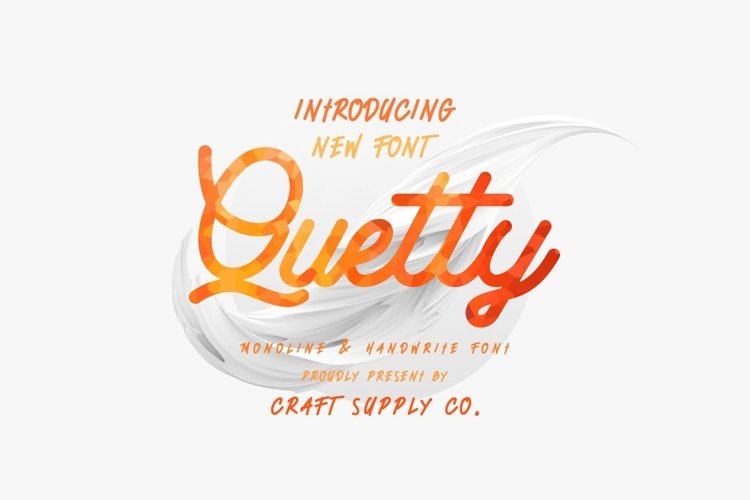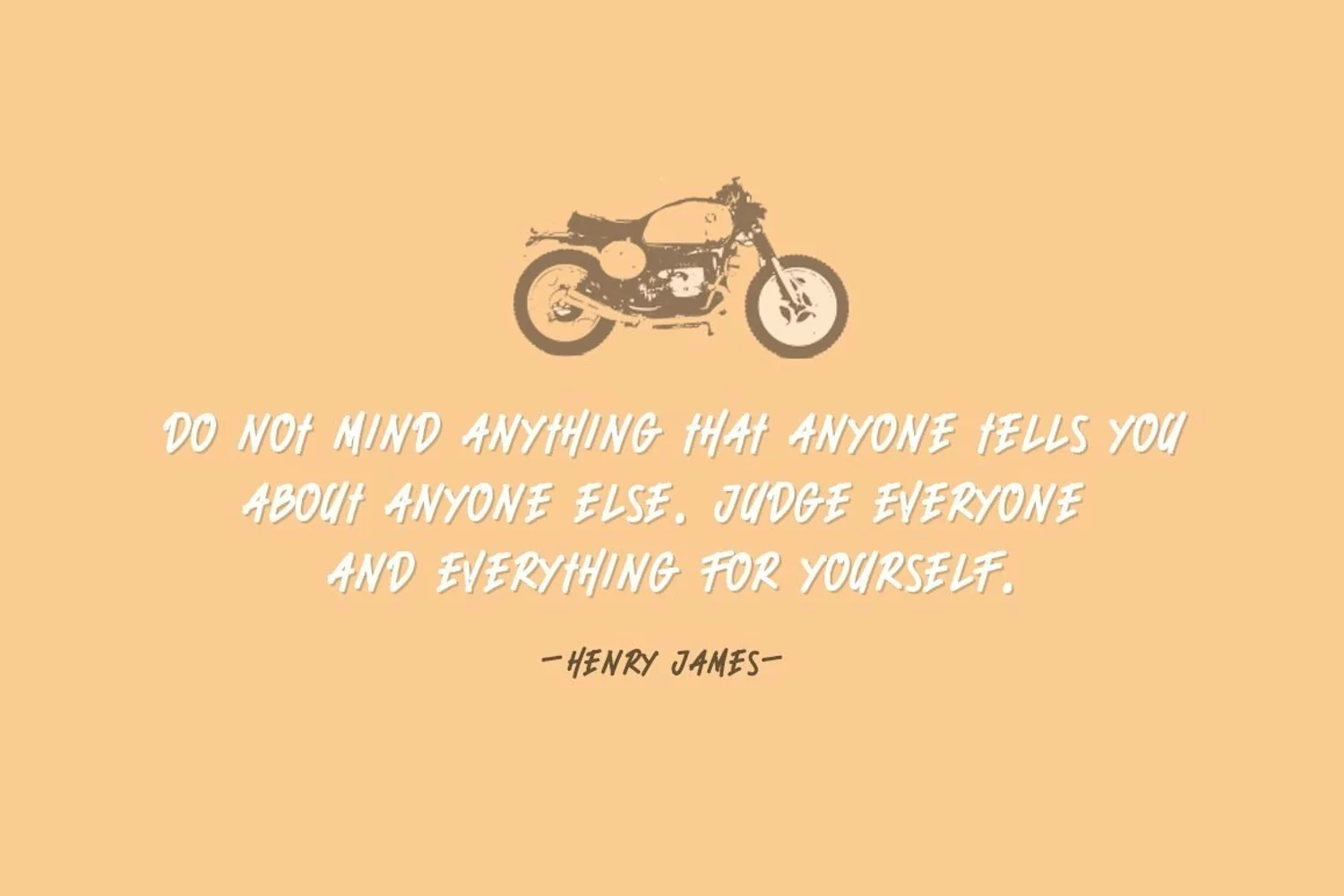
Web Font Quetty - Monoline & Handwrite Font
Introducing New Font : Quetty - Monoline & Handwrite Font
Quetty is an awesome monoline font. It consists of regular monoline script fonts and funky monoline fonts. Made by hand, inspired by freedom of writing. With a nice retro look. Ideal for use in logos, letters, quotes, cards, leaflets or whatever you want.
Quetty also suitable for happening style like handdrawn design or watercolor design theme, craft design, any DIY project, book title, wedding font, pop vintage design, or any purpose to make our art/design project look pretty and trendy.